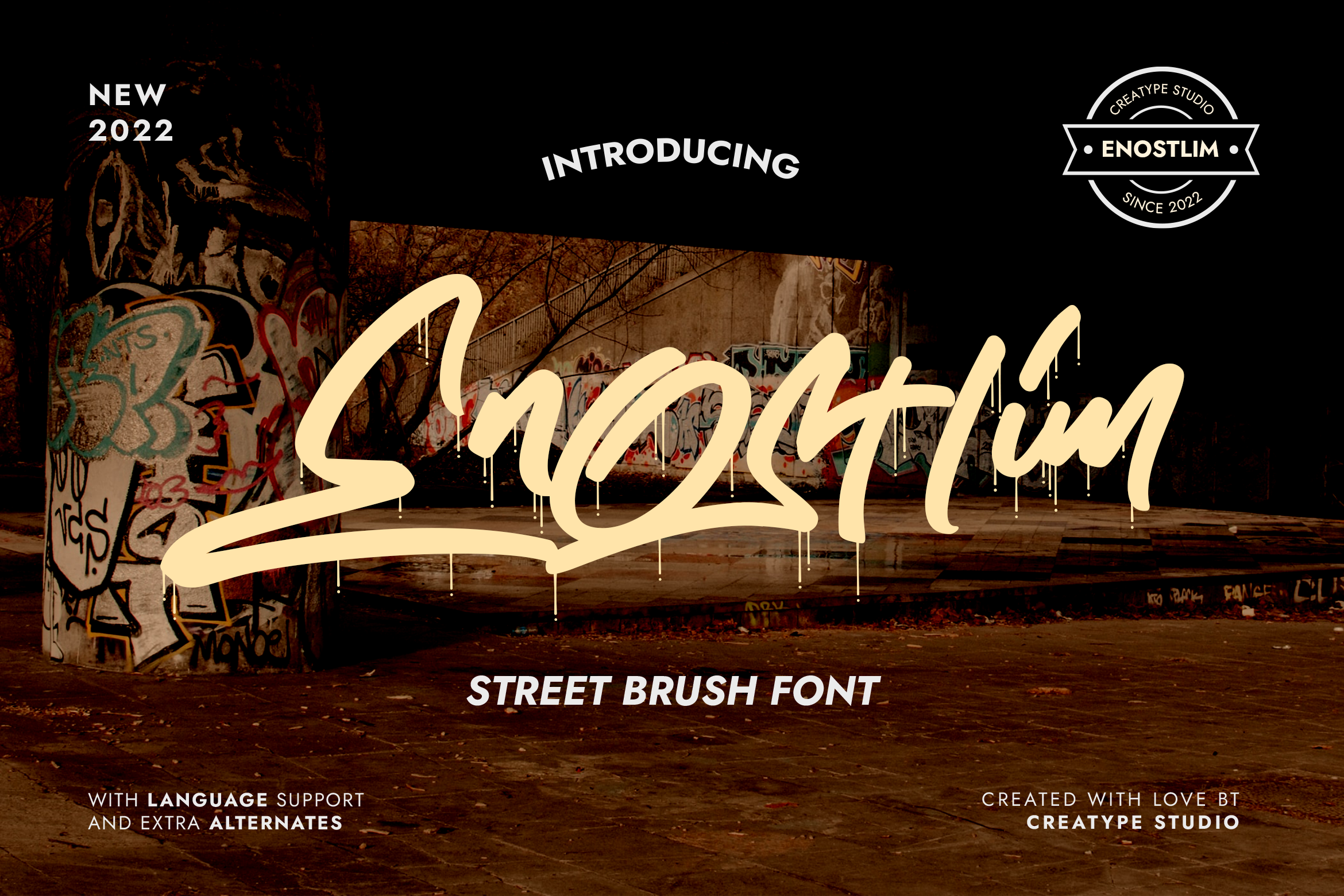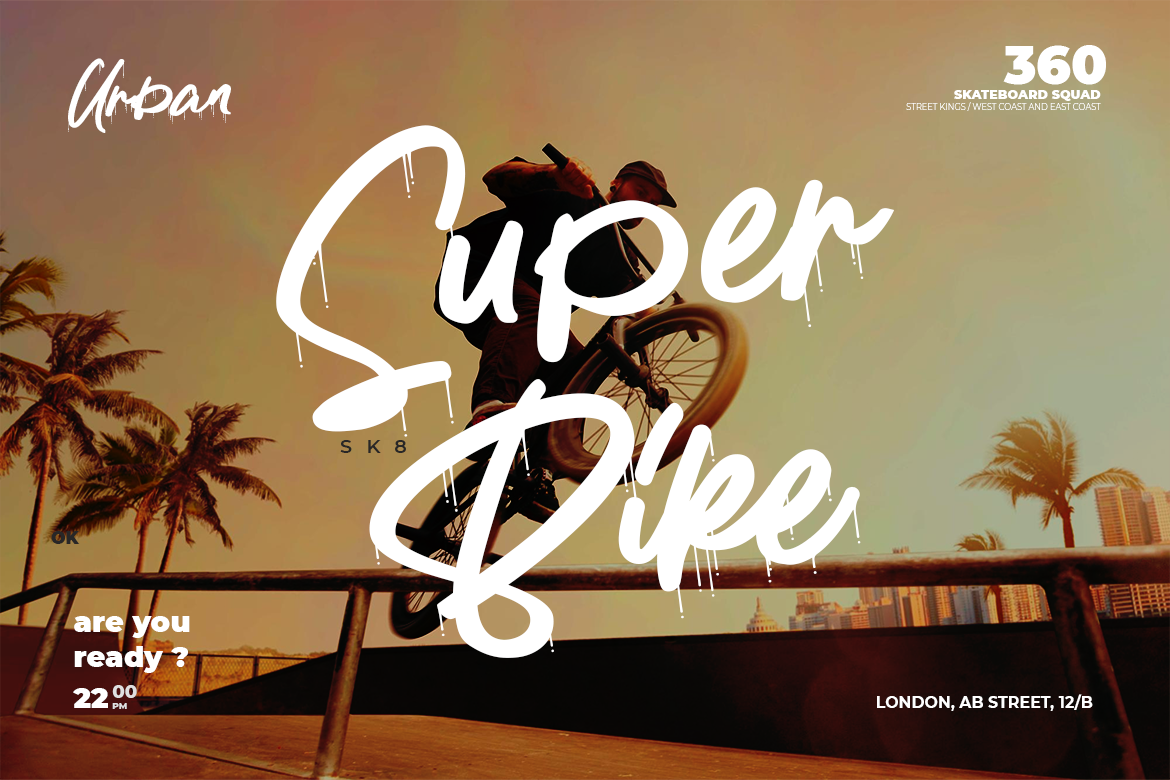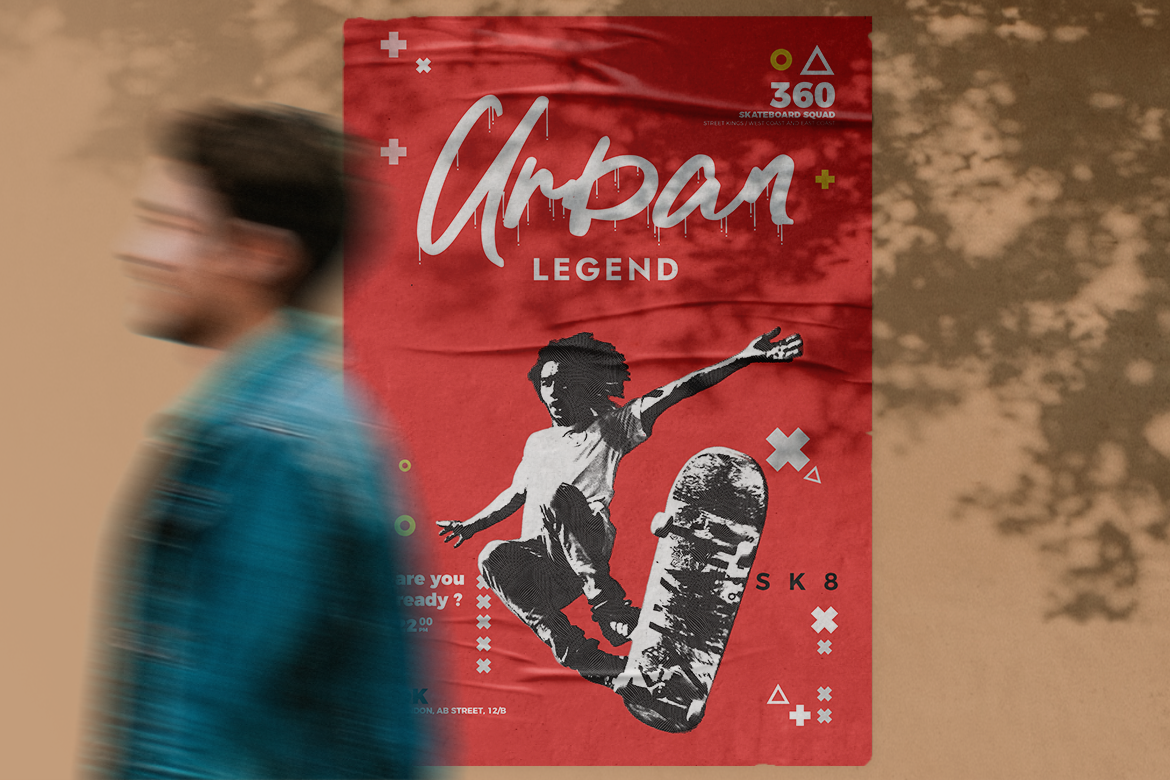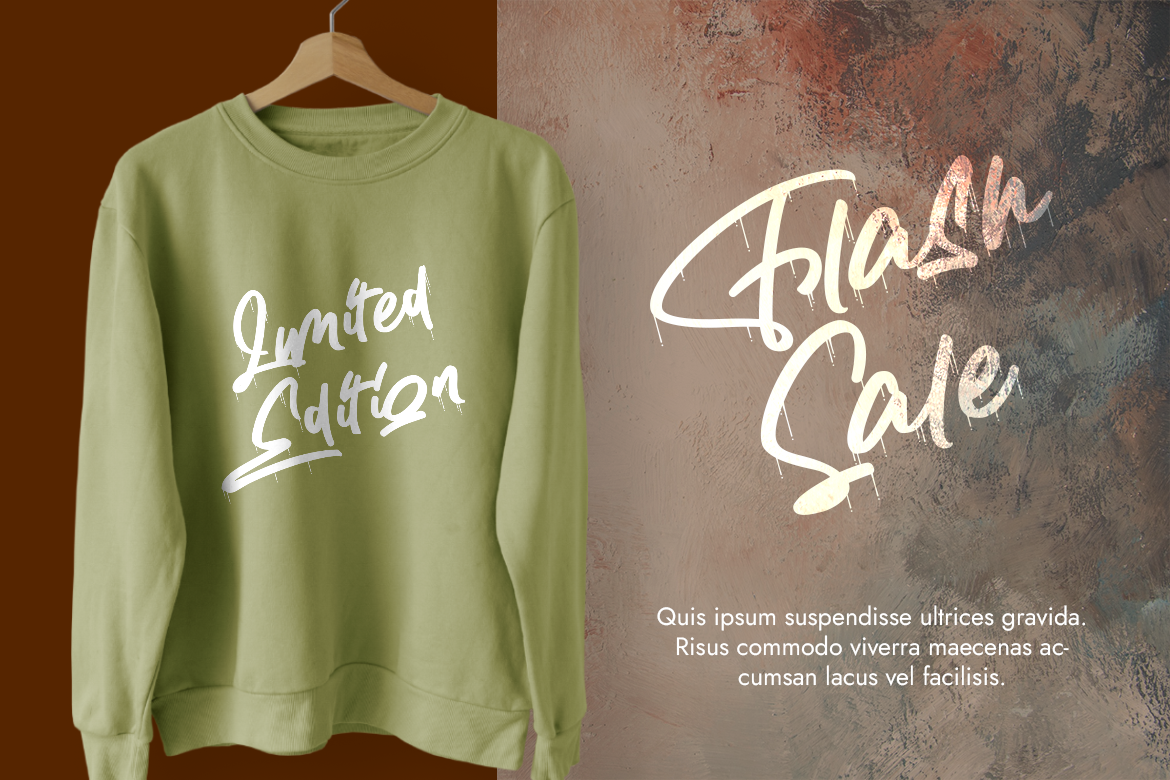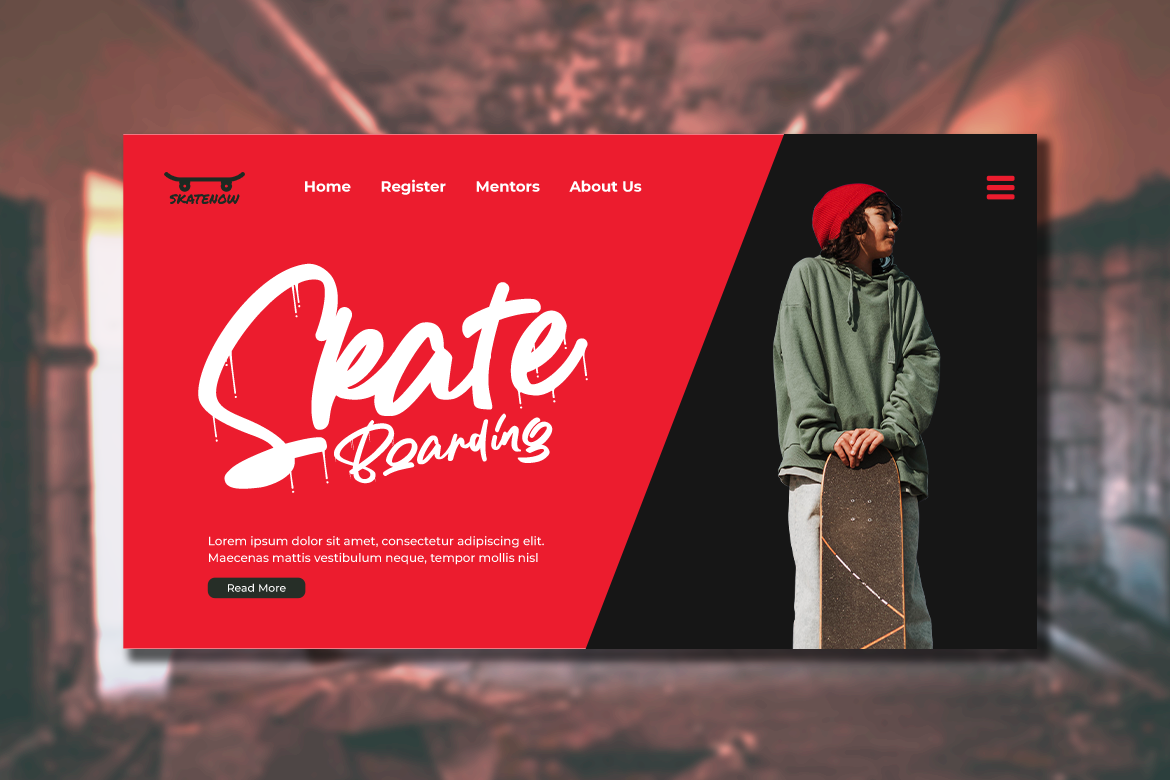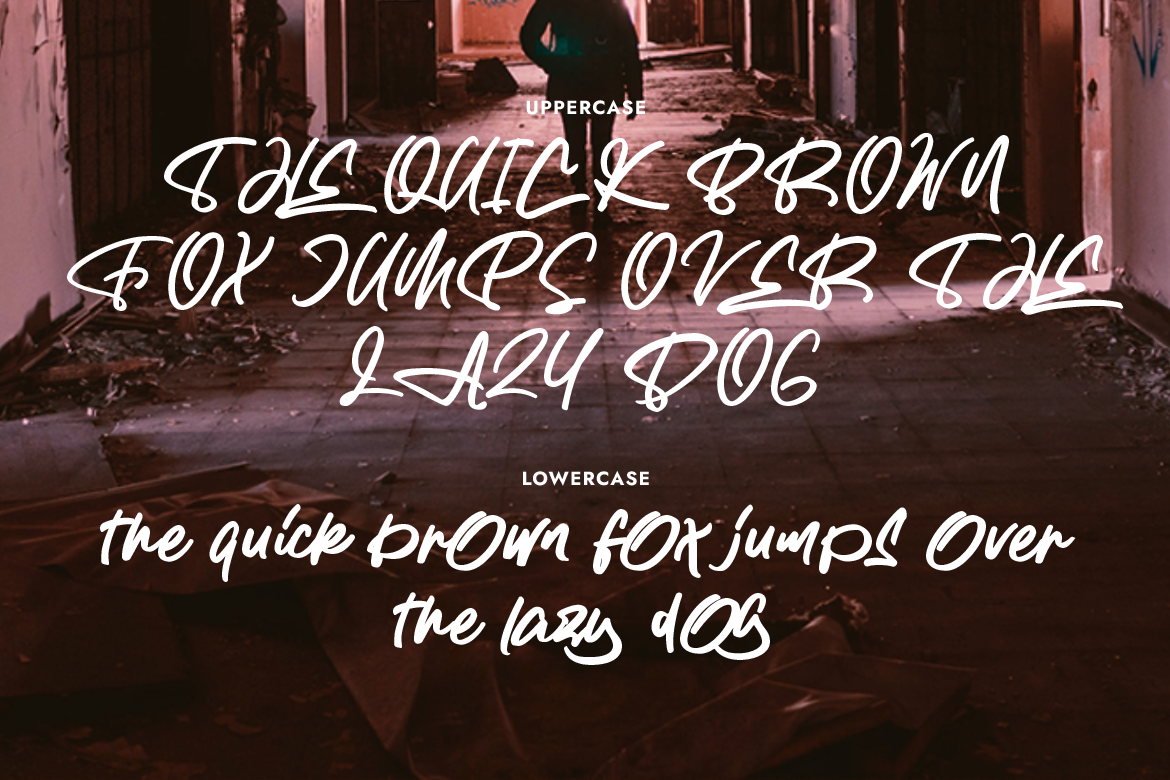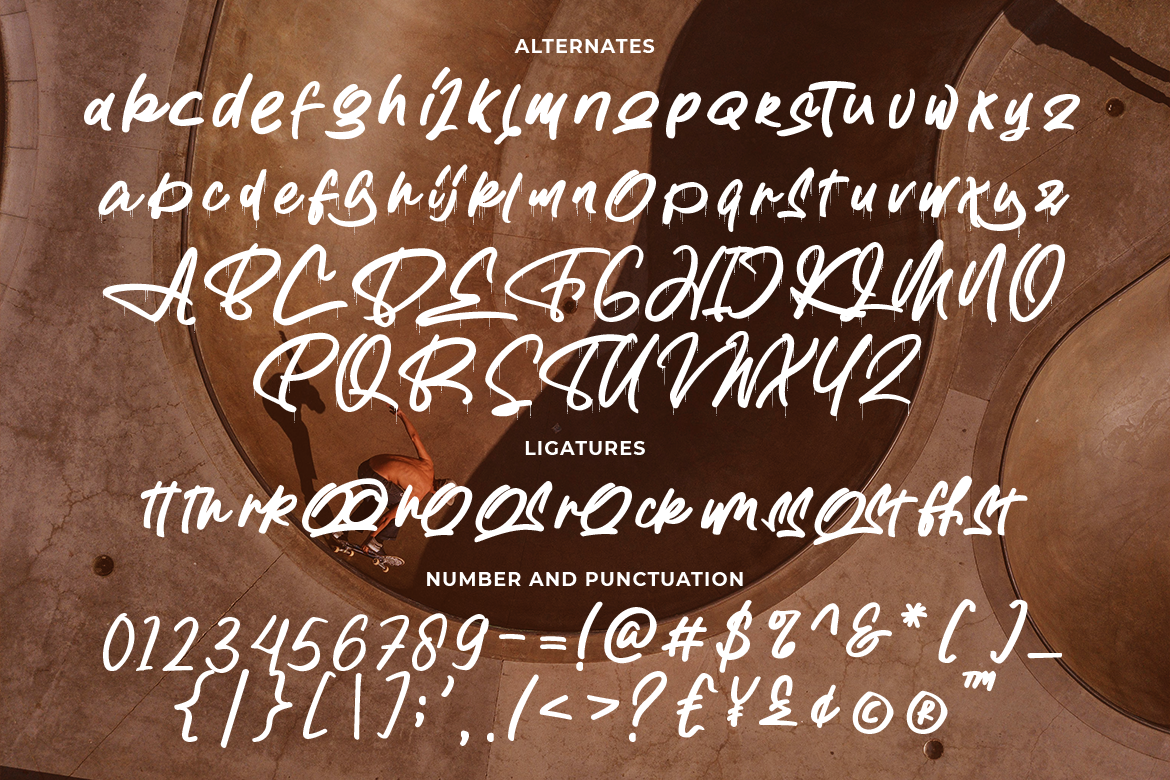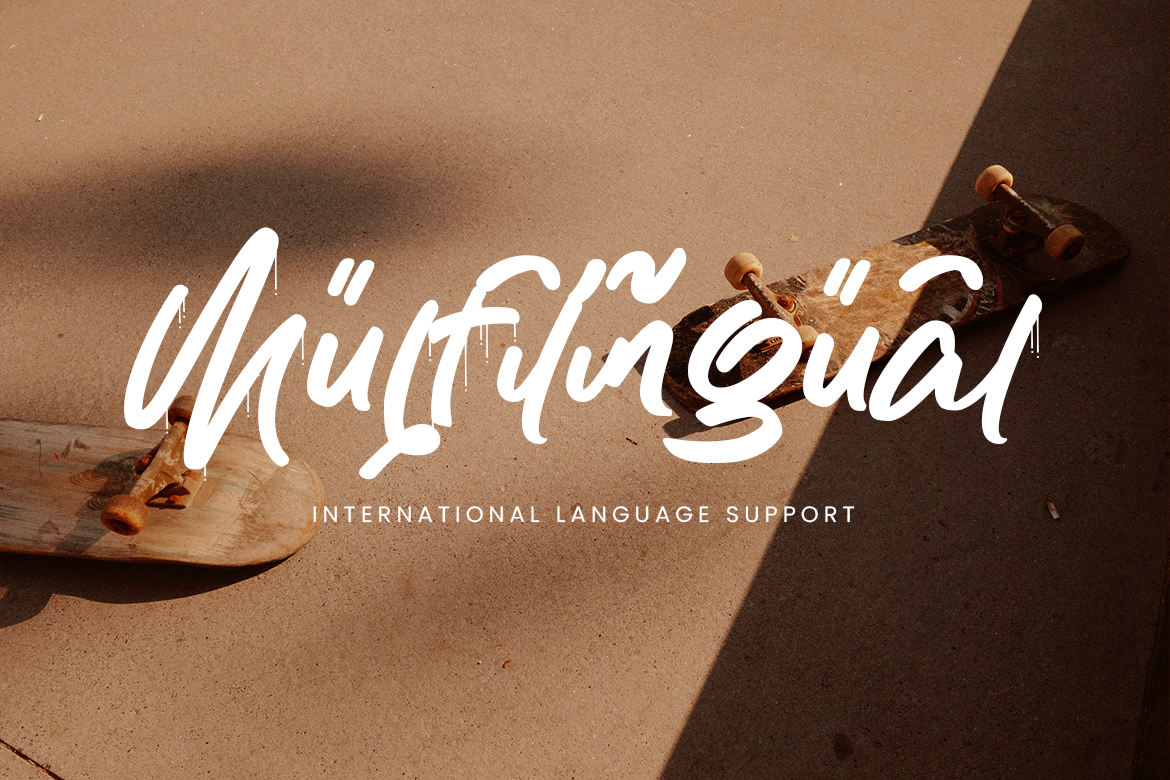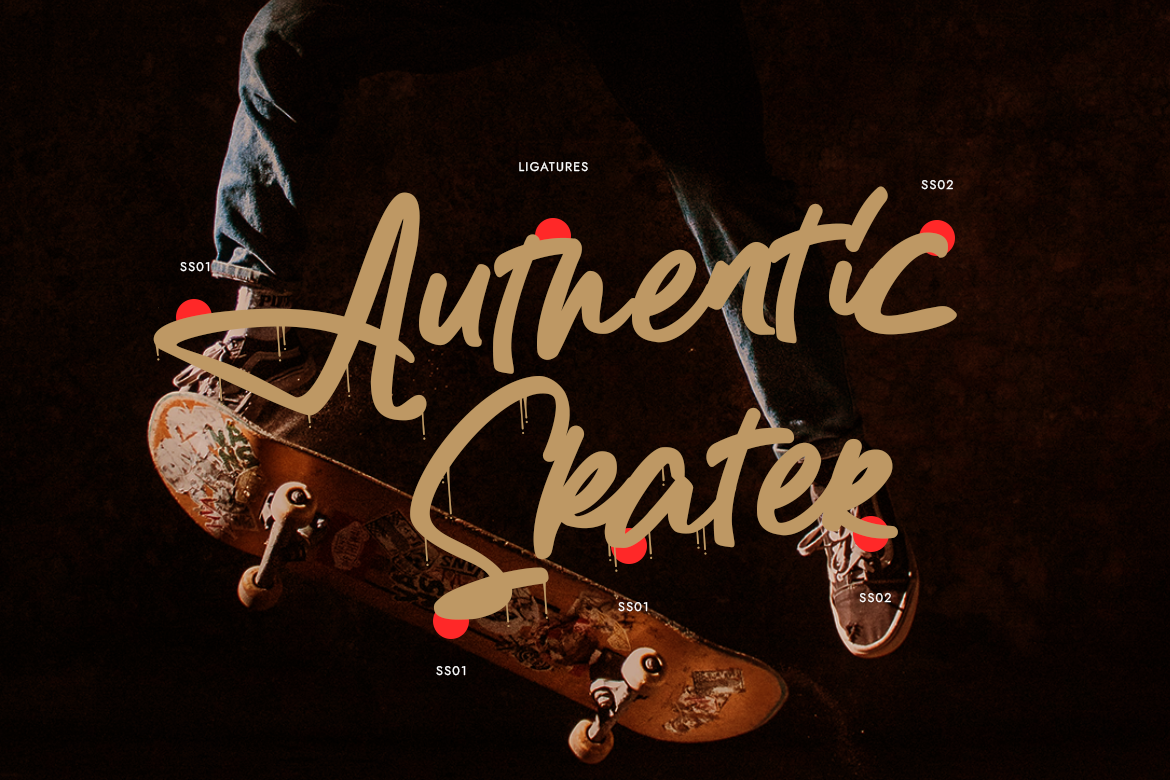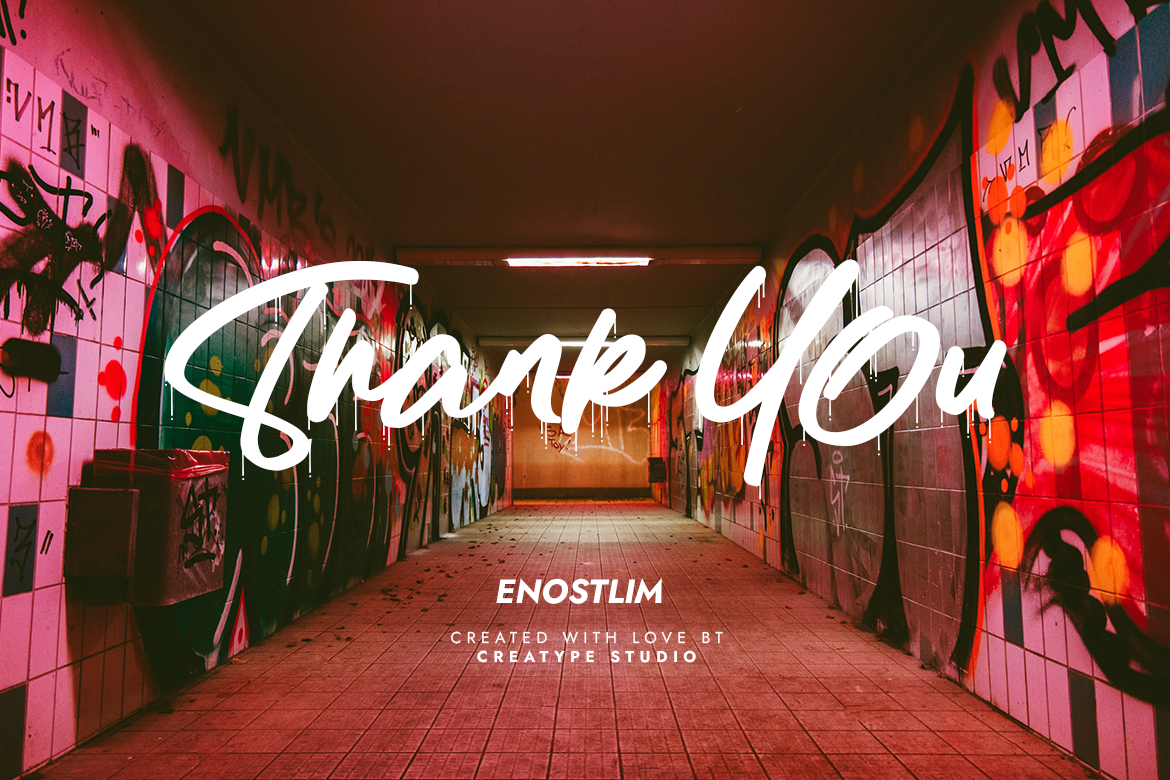
Enostlim Street Brush
Enostlim is a street brush font with a fun and carefree vibe. The paint drip marks add a realistic look to Enostlim.
Enostlim is perfect for branding projects, logo, wedding designs, social media posts, advertisements, product packaging, product designs, label, photography, watermark, invitation, stationery and any projects that need handwriting taste.
- Ton of glyphs
- Ligature & Alternate
- Fonts include multilingual support for; Afrikaans, Albanian, Czech, Danish, Dutch, English, Estonian, Finnish, French, German, Hungarian, Italian, Latvian, Lithuanian, Norwegian, Polish, Portuguese, Slovak, Slovenian, Spanish, Swedish.